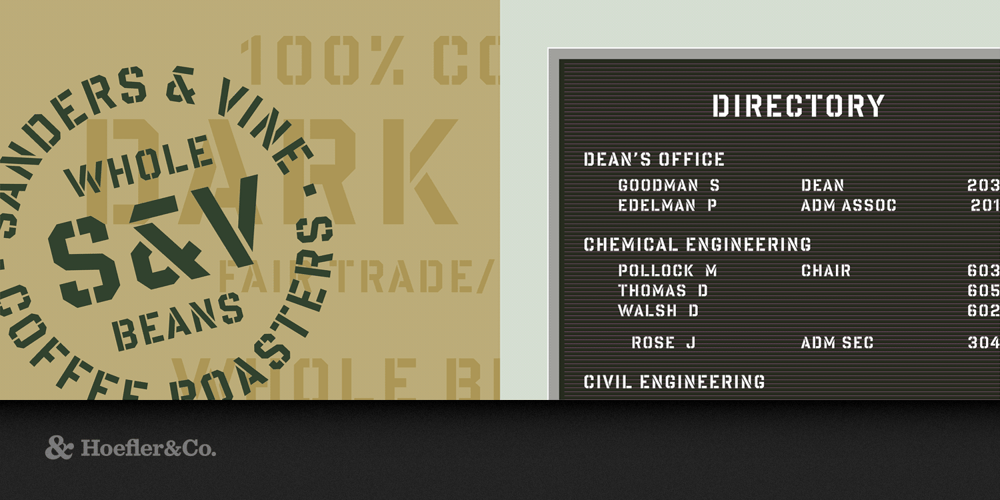
Giant Font Family was designed by Jonathan Hoefler and published by Hoefler & Co.. Giant contains 3 styles and family package options. Part of the Shades collection of two-color fonts, Giant is an unexpected brew of different idioms from the world of commercial lettering. The Giant typeface was designed by Jonathan Hoefler in 1996. A sly mashup of different industrial idioms, including spray-painted stencils, feltboard office directories, and surface-gilt window letters, Giant was commissioned by Barbara Glauber on behalf of the iconic rock duo They Might Be Giants. A ‘chromatic’ typeface, Giant includes the two styles Background and Highlight, designed to be set in different colors and superimposed in register. Originally known as They Might Be Gothic, the Giant typeface first appeared on the band’s 1996 album Factory Showroom. From the desk of the designer: Designer Barbara Glauber wanted to “crash different vernaculars” when she designed They Might Be Giants’ Factory Showroom album. The typeface she commissioned us to design (formerly known as They Might Be Gothic) pits industrial letterforms against commercial ones in a stylistic deathmatch: we applied the faceting of surface-gilt window letters to the typography of the feltboard office directory, with an added dose of industrial stencilling that periodically ignores the dictates of logic.